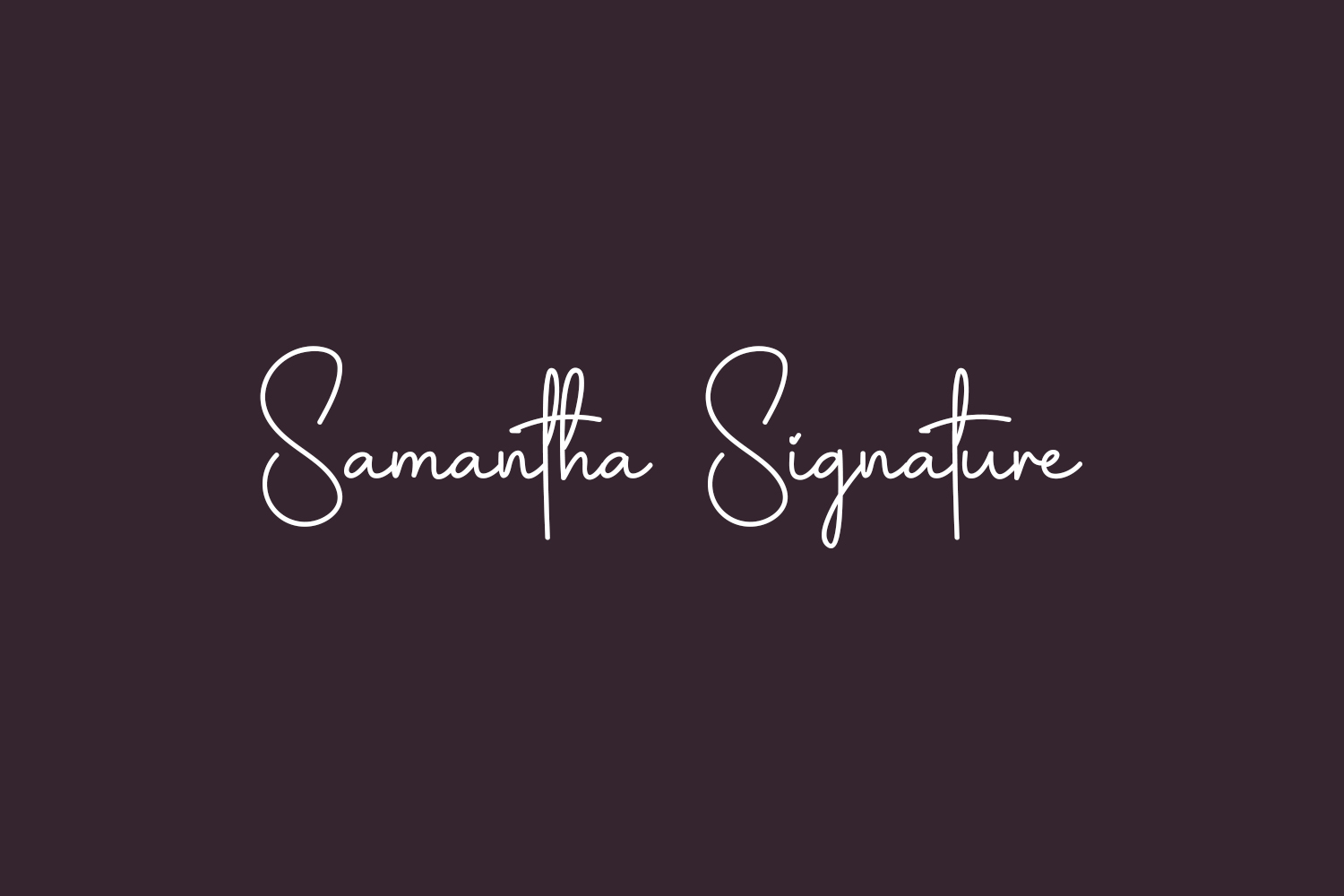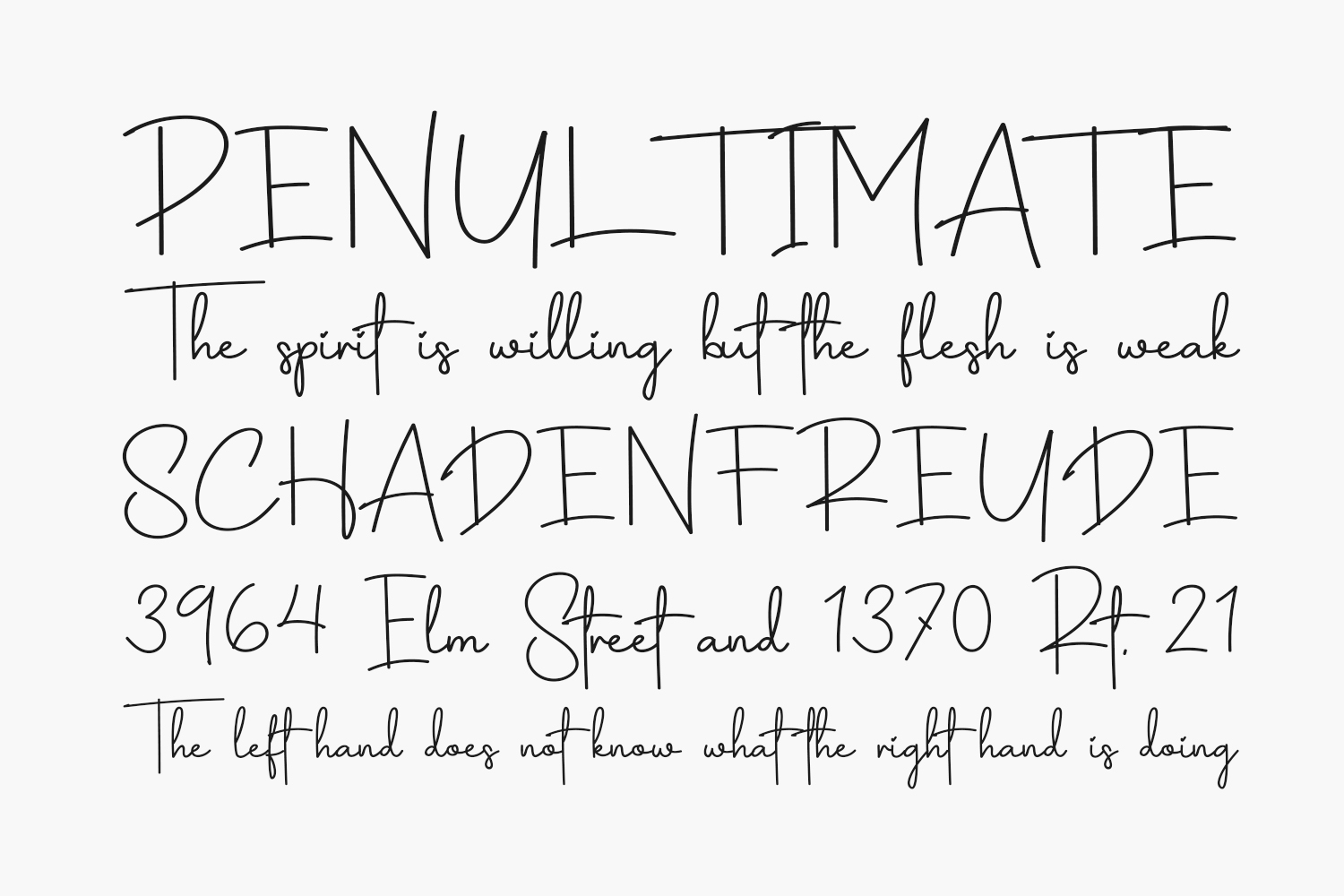
Samantha Signature Free Font is an exquisite handwritten font, masterfully designed to become a true favorite. It maintains its classy calligraphic influences while feeling contemporary and fresh. Samantha Signature Free Font is free for personal use only. Please purchase the full version for commercial use.
Designed by Behind the Ink